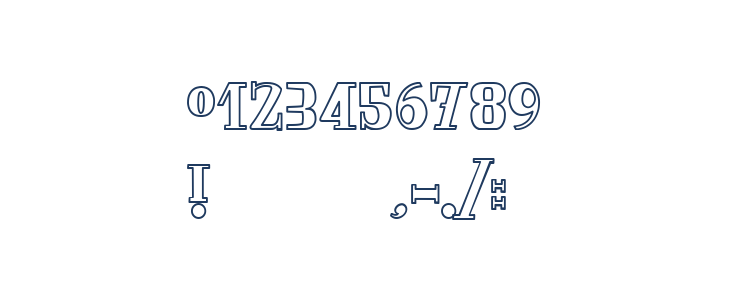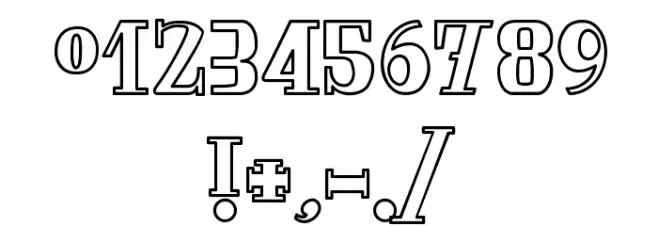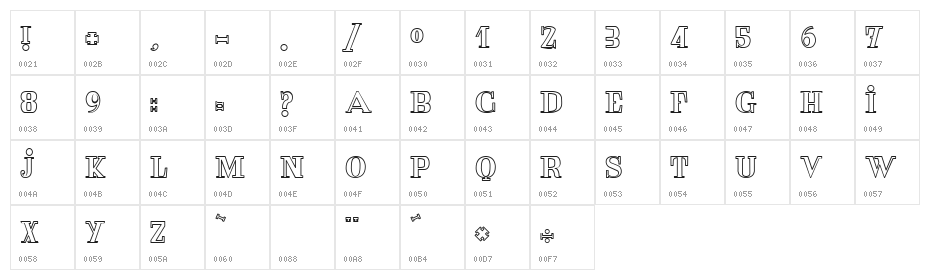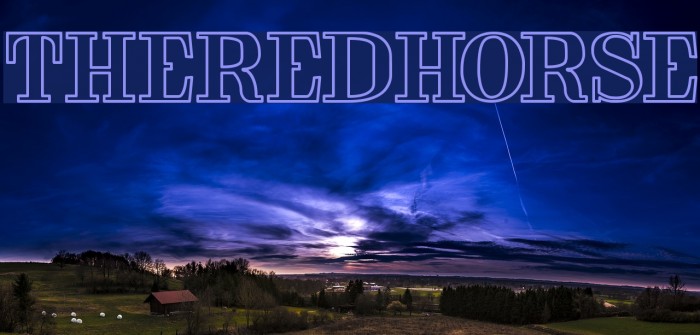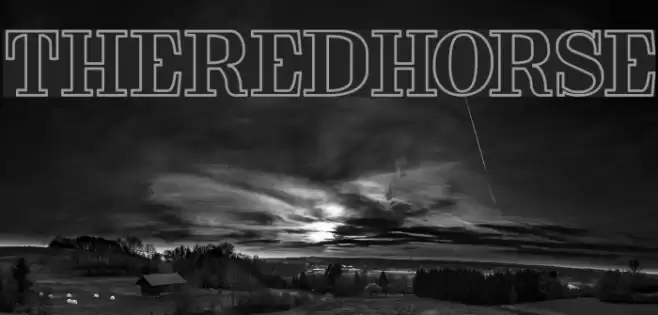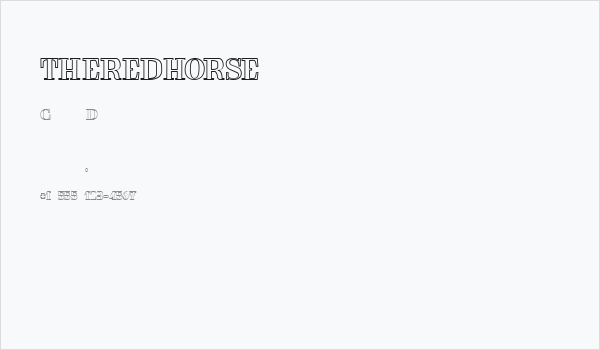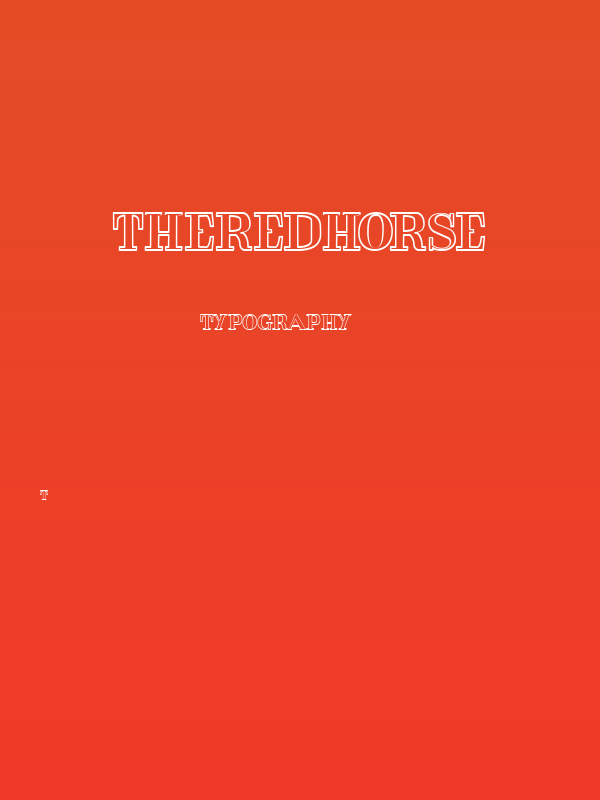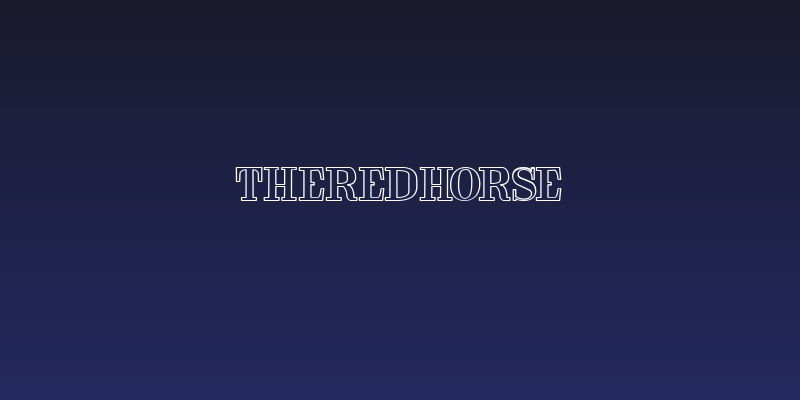
THEREDHORSE Font
THEREDHORSE Description
This font features a bold, outlined style with a classic serif structure. The uppercase letters are prominent and well-defined, with a consistent stroke width that gives them a strong presence. The serifs are sharp and pronounced, adding a touch of elegance and formality. The numbers and special characters follow the same outlined style, ensuring uniformity across all glyphs. The overall design is reminiscent of traditional serif fonts but with a modern twist due to the outline effect, making it suitable for eye-catching headlines and titles.